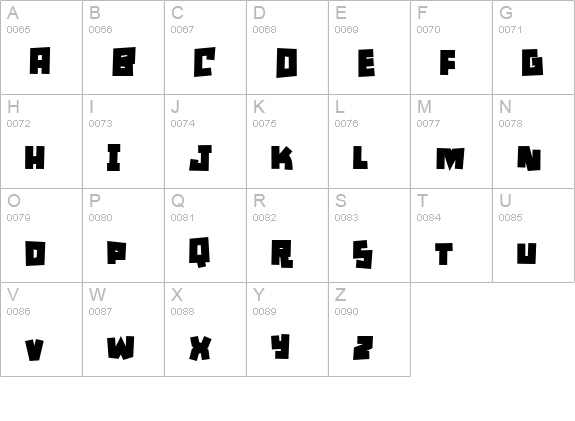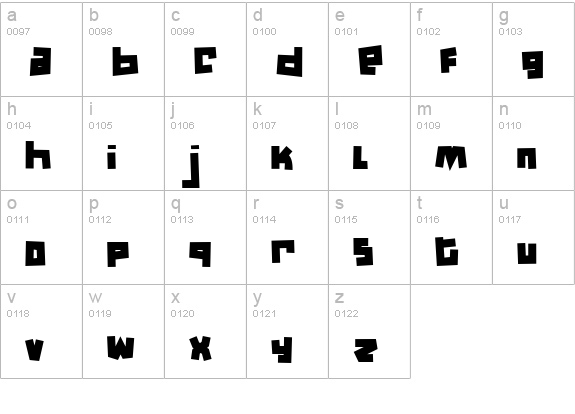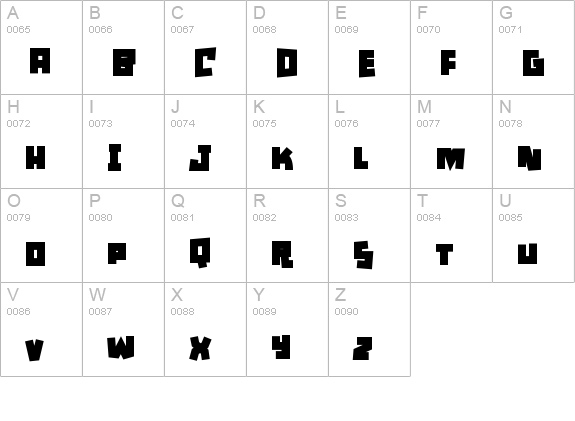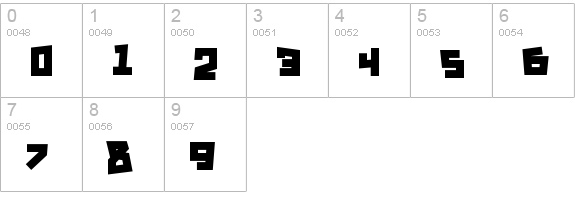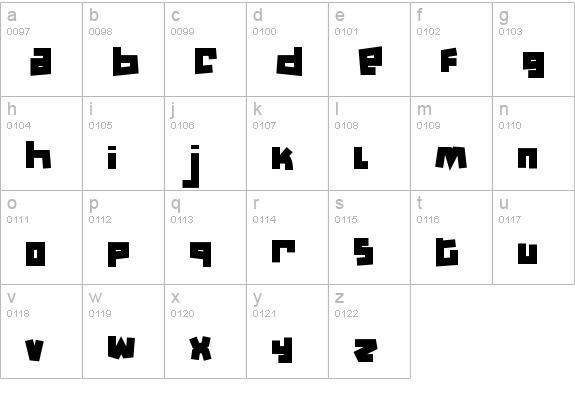
Introducing Mullet font - a fun and quirky typeface that exudes retro charm and a hint of rebellious spirit. With its unique blend of bold strokes and playful curves, Mullet font is perfect for adding a touch of personality to your designs. Whether you're looking to create a vintage-inspired poster, eye-catching logo, or funky branding materials, Mullet font is sure to make a statement. Best of all, Mullet font is available for free download at FontsMarket.com, making it easily accessible for all your creative projects. Embrace the nostalgia and flair of the past with Mullet font, and let your imagination run wild with this versatile and captivating typeface.